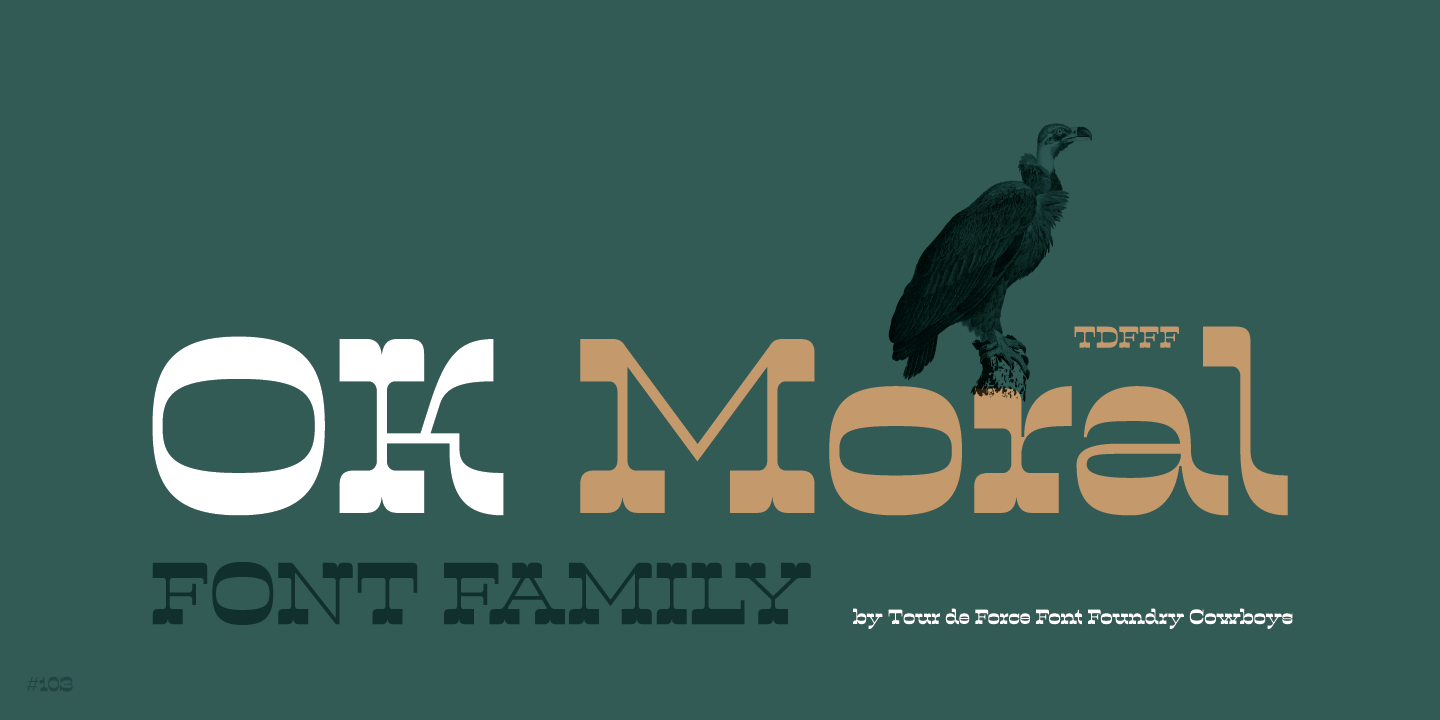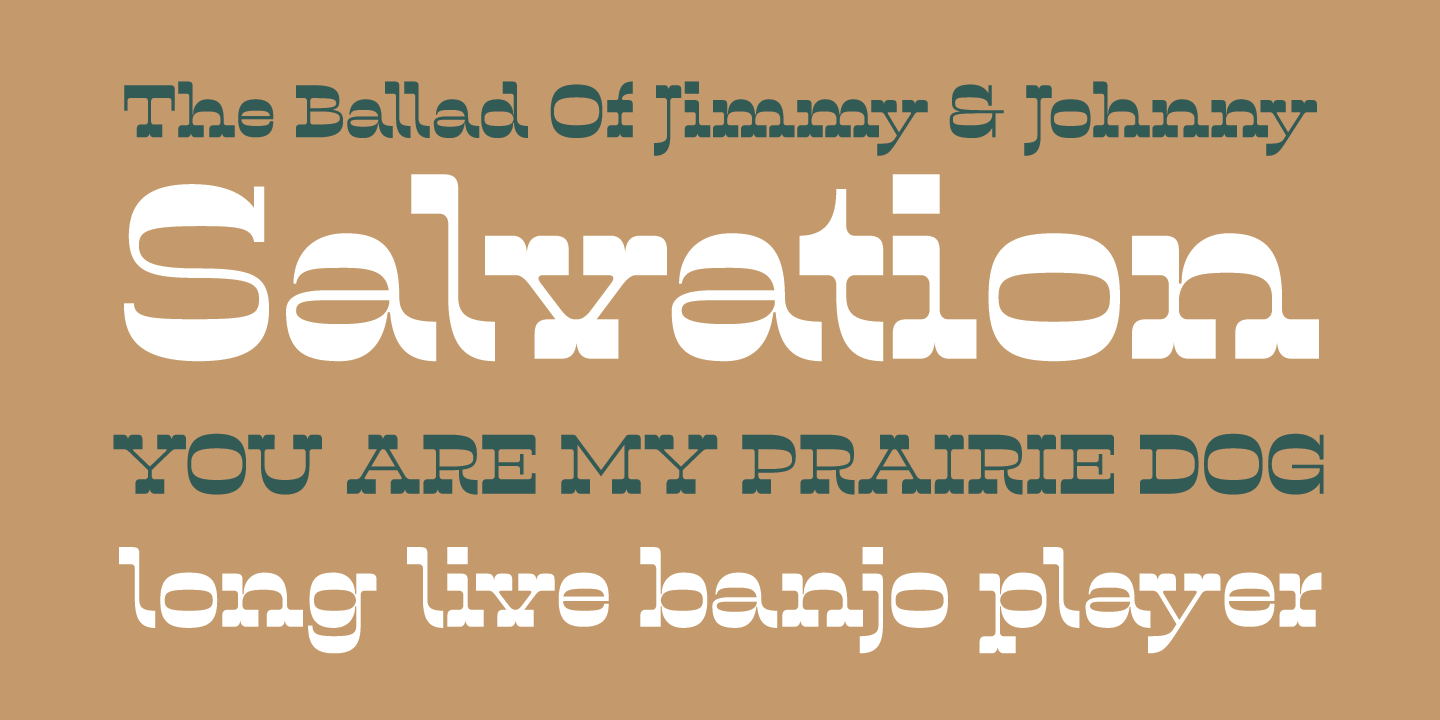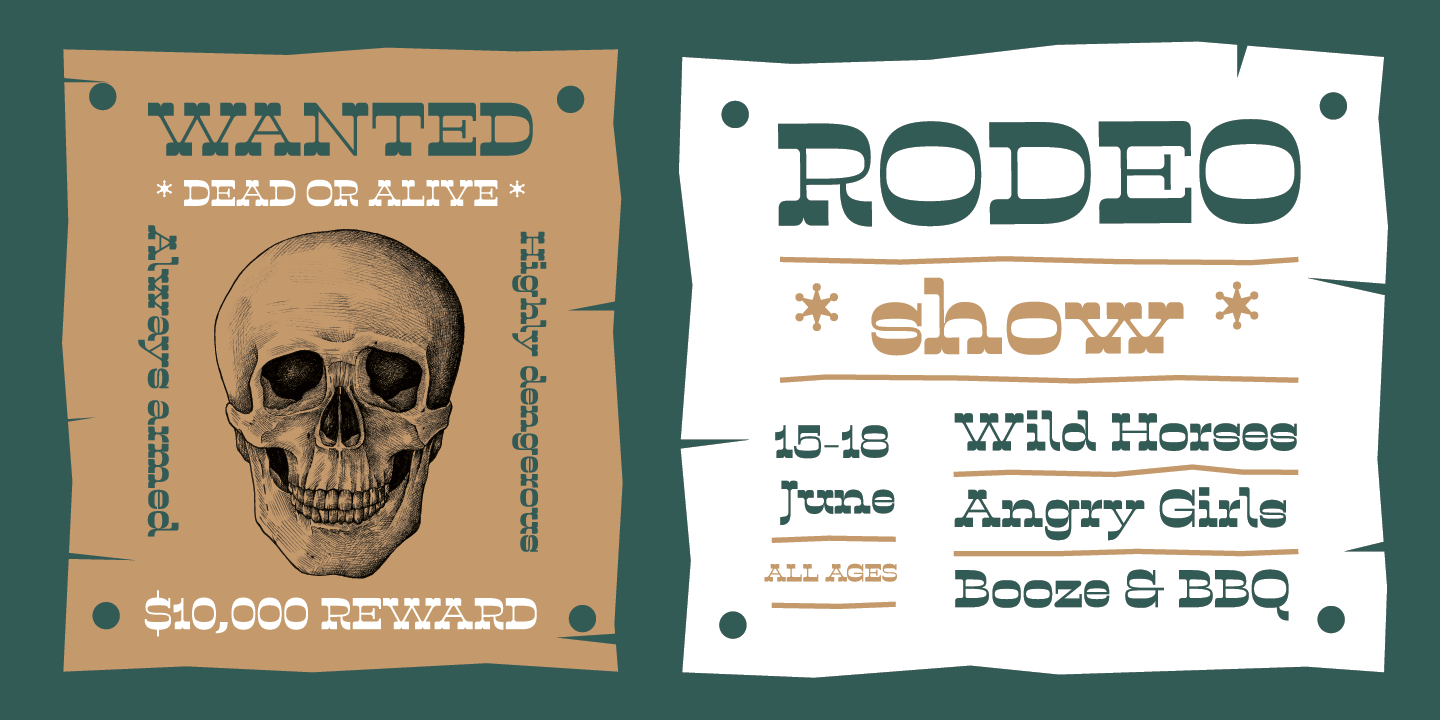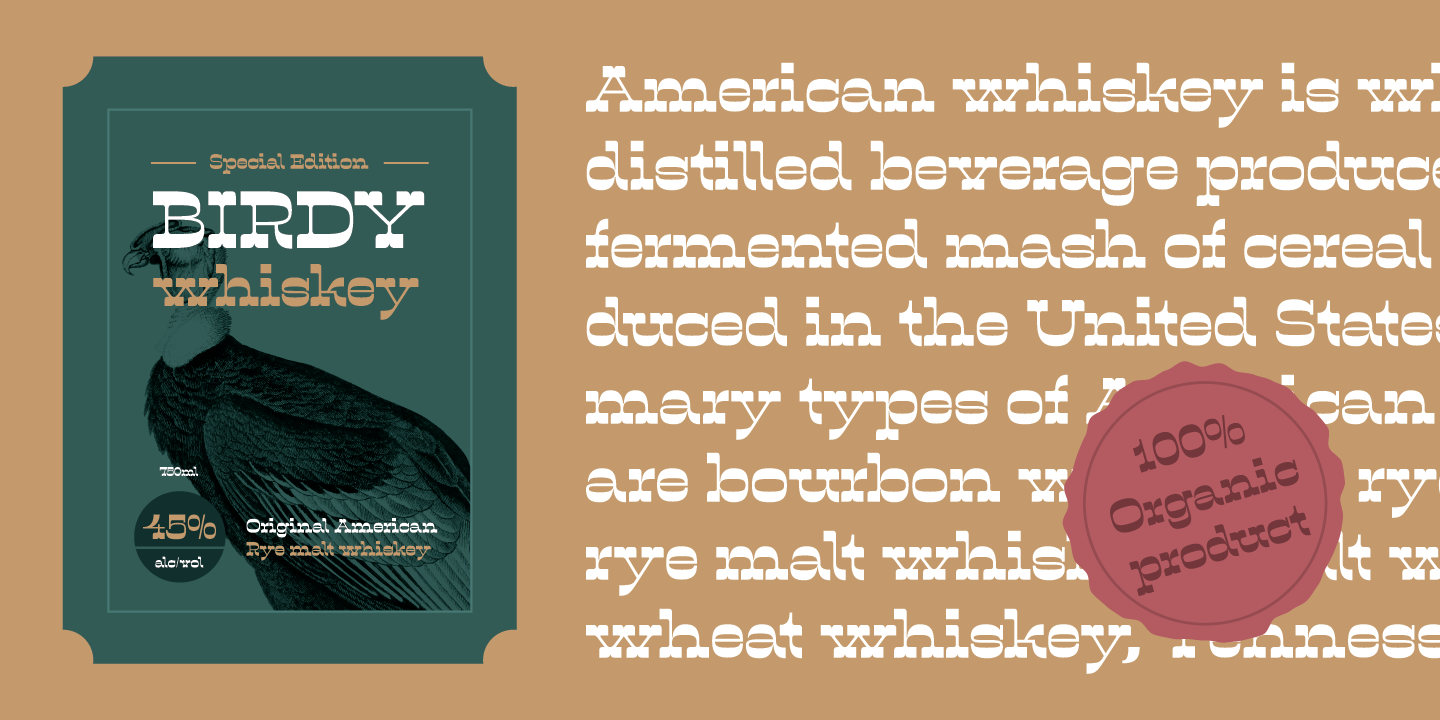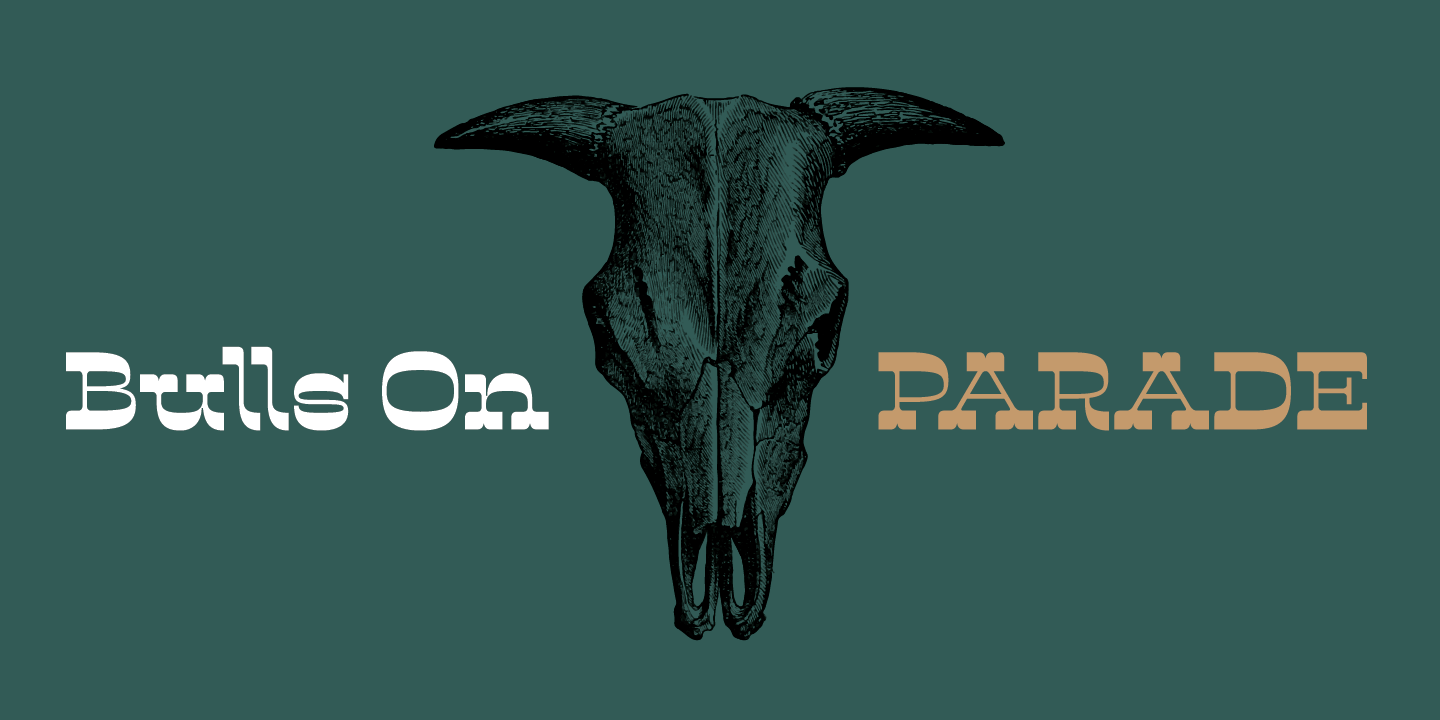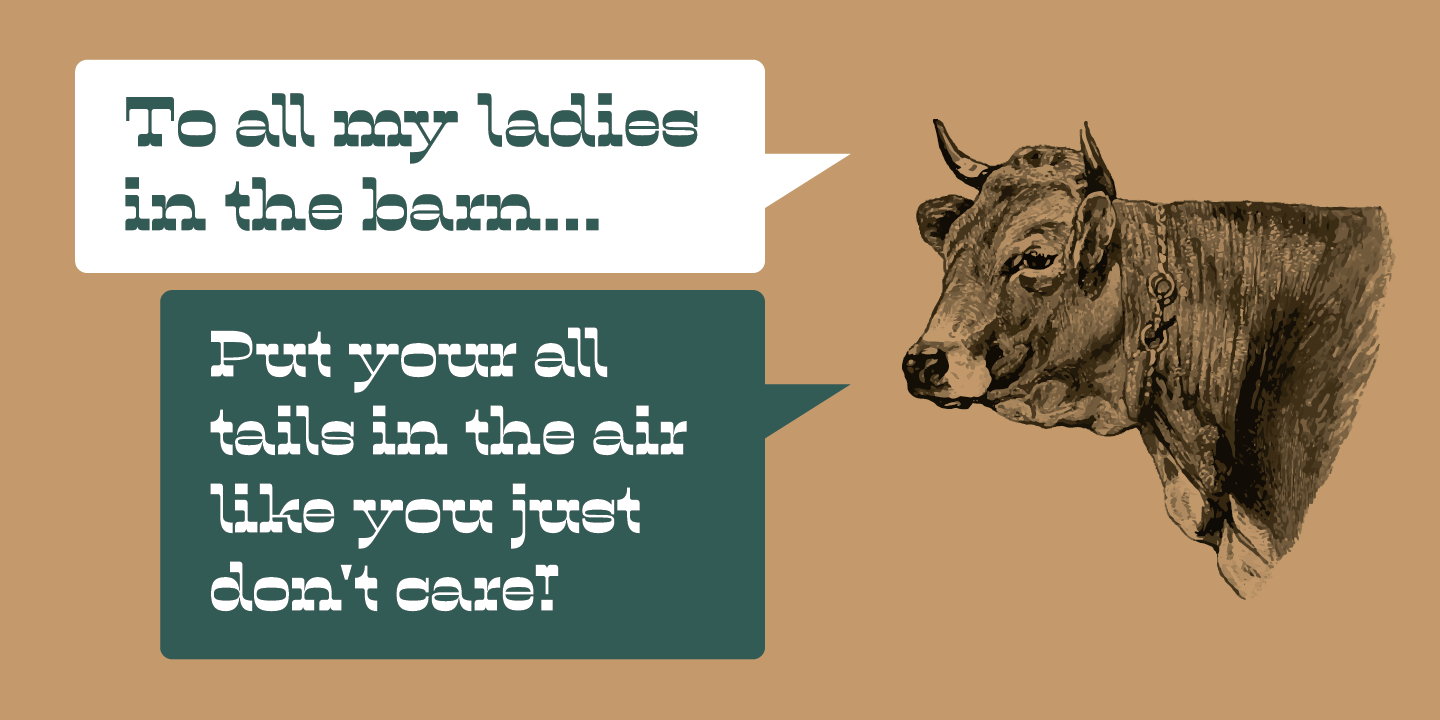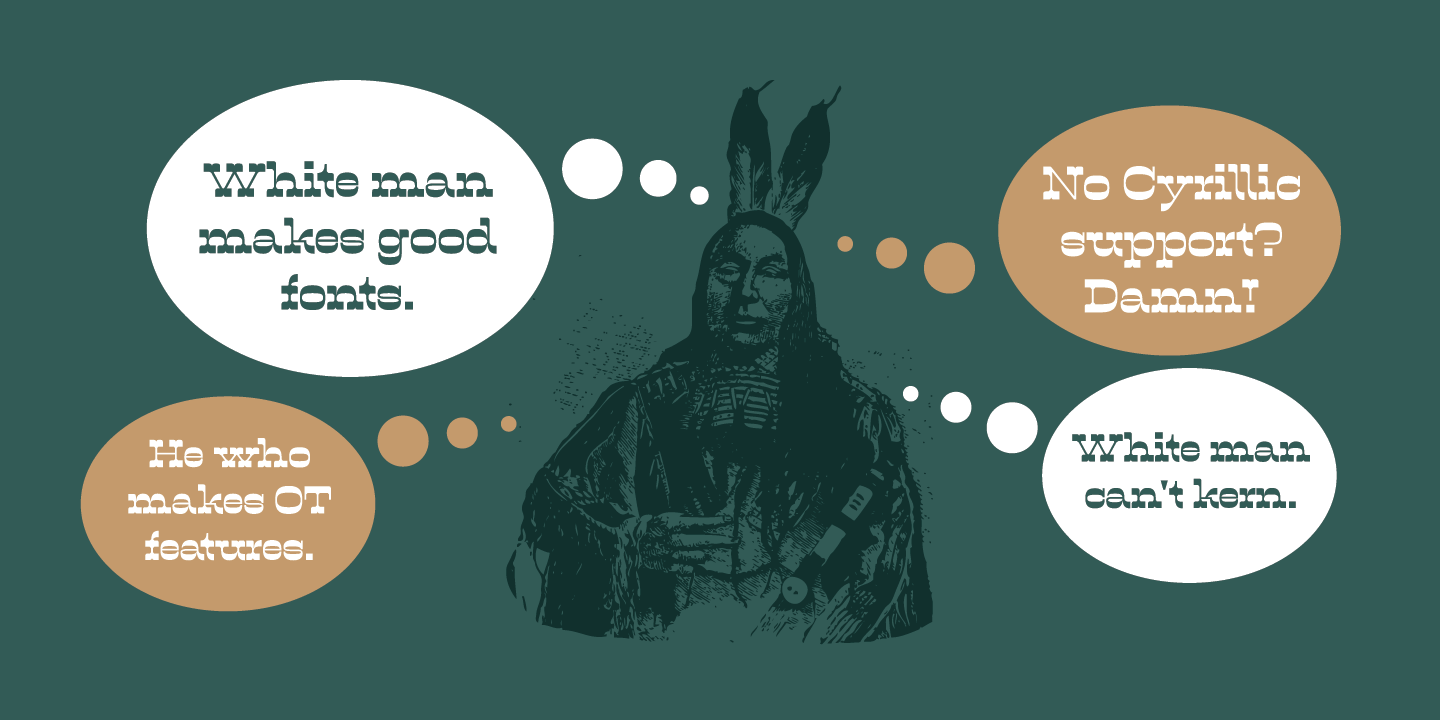
Glyphfight at the OK Moral – single weight Western style typeface. High inverted contrast, generous width, decorative serifs, extended Latin support. It is our 103rd release.